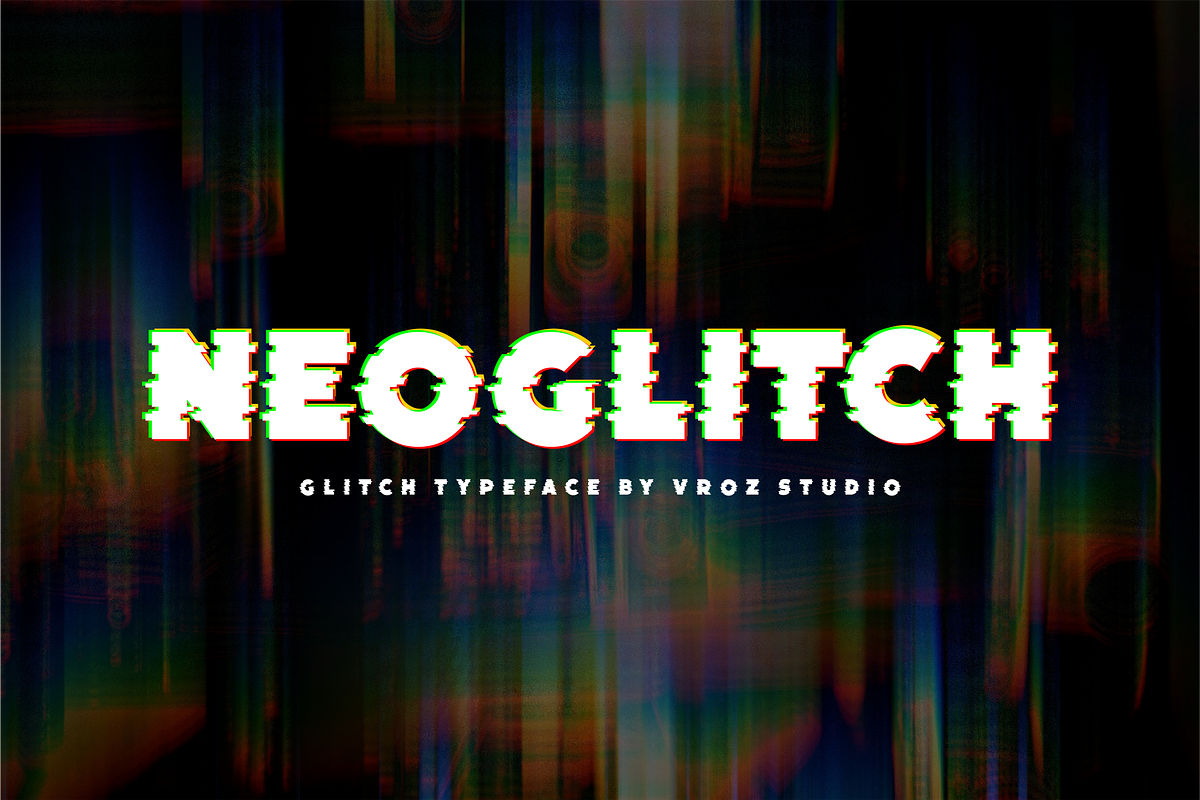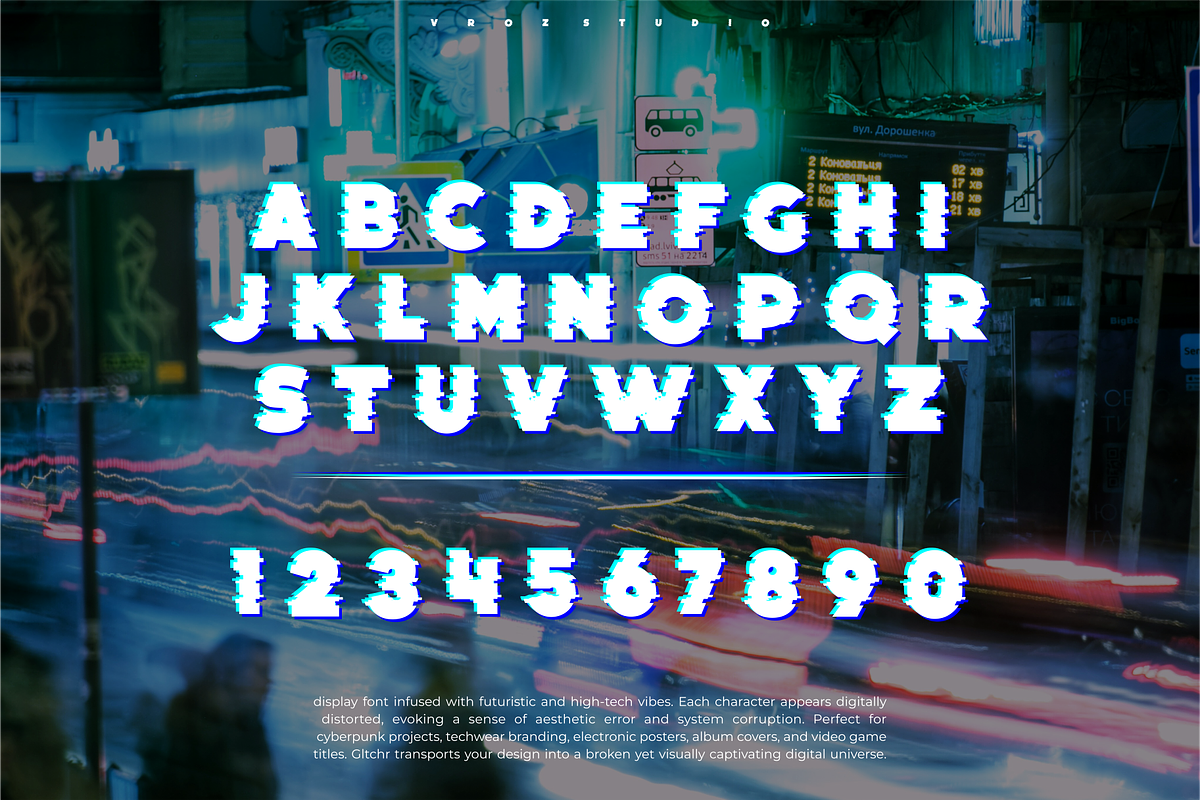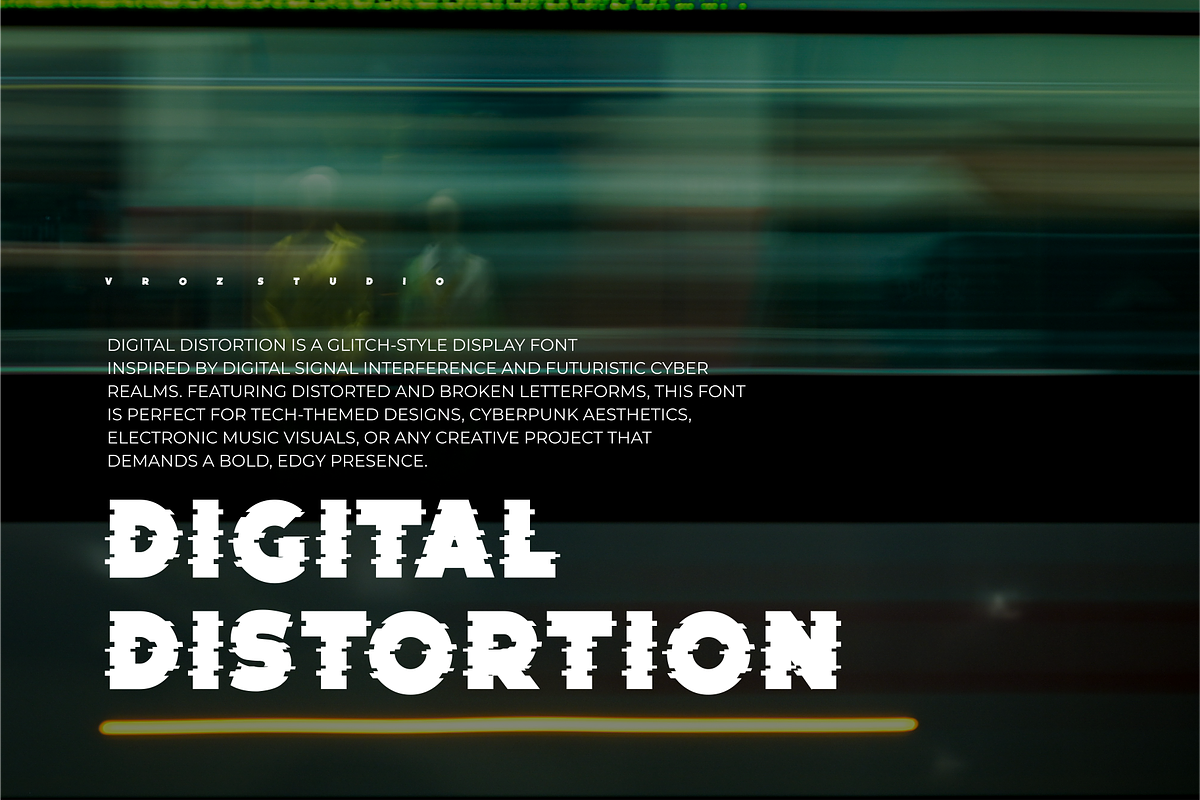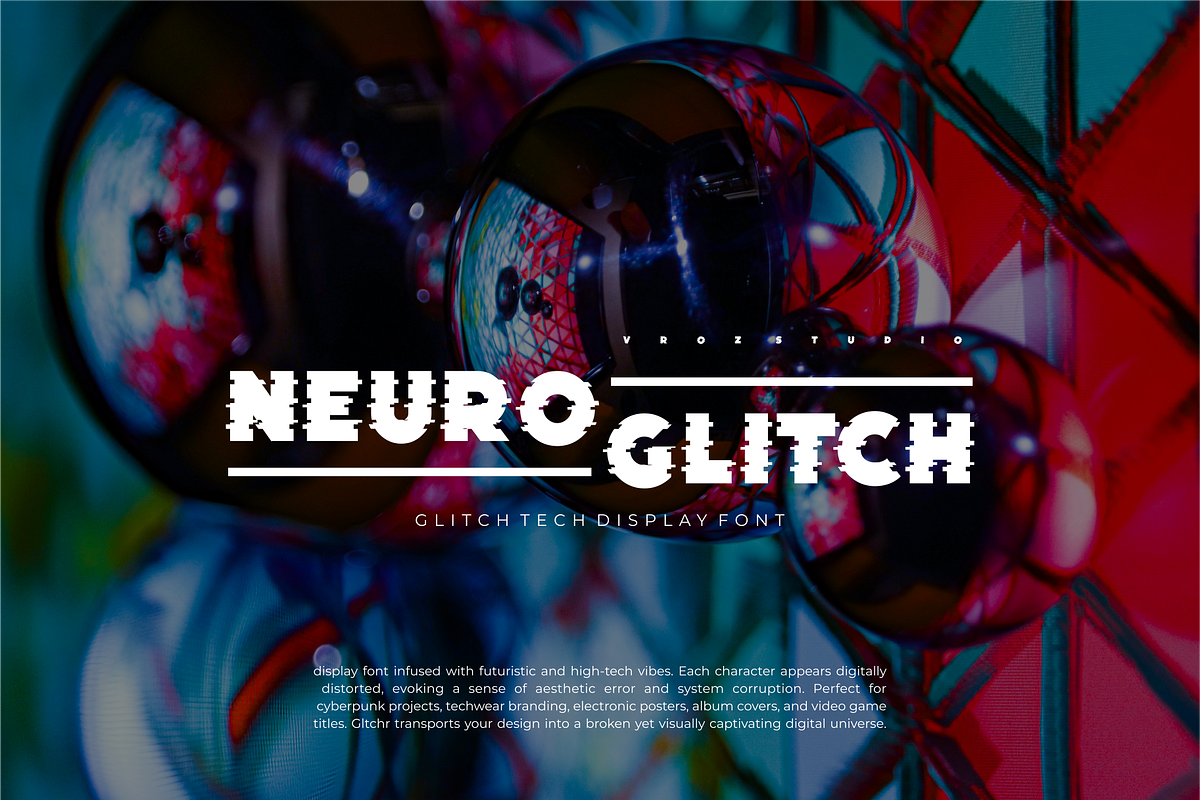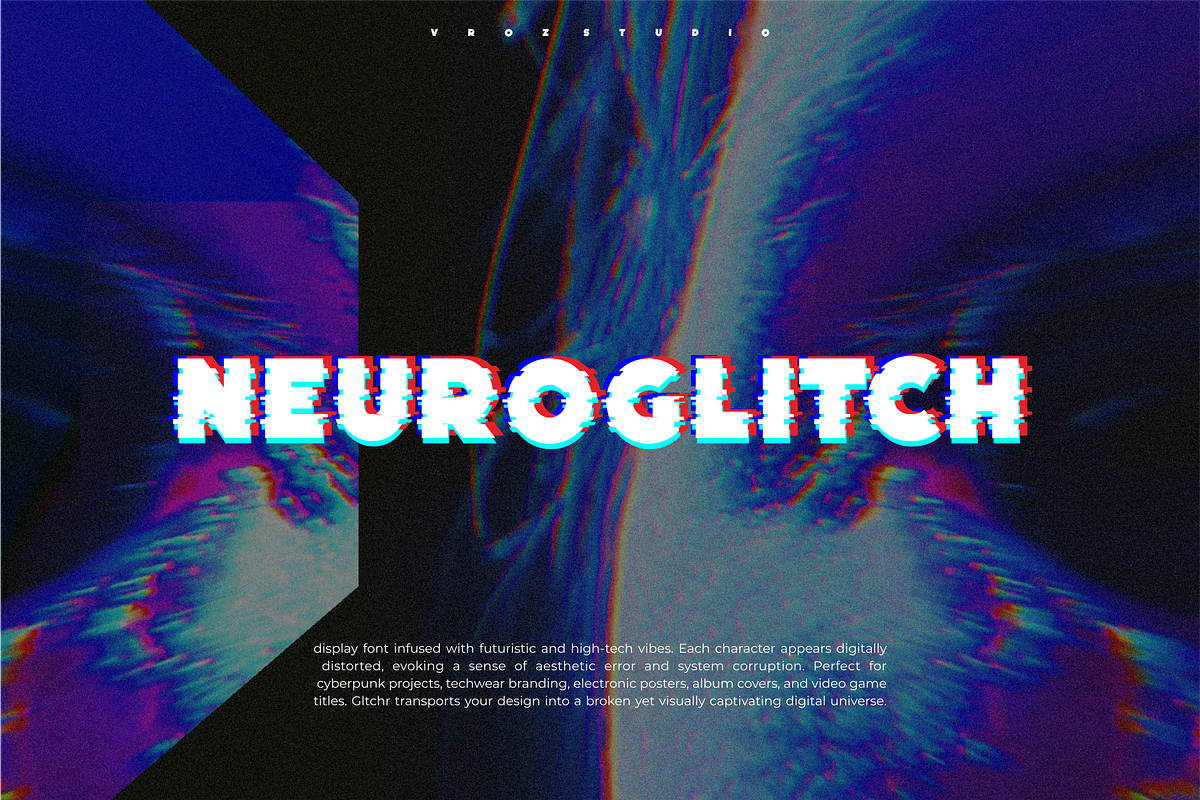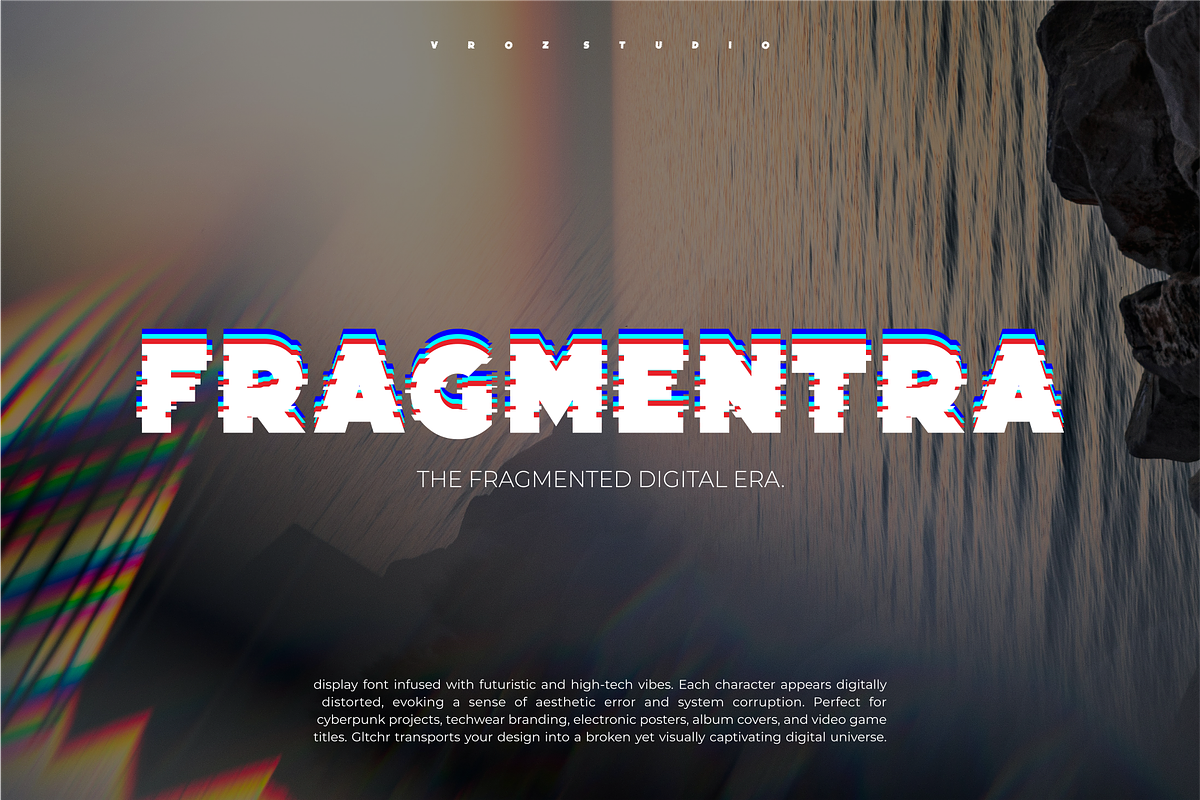
NEOGLITCH - Glitch Typeface font
NEOGLITCH – Glitch Typeface Font
NEOGLITCH is a modern font with a glitch effect, combining futuristic and digital elements. The design features characters that seem "glitched" or disrupted, giving it an energetic, techy vibe. It’s perfect for designs related to technology, cyberpunk, and digital themes. ___ Available in OTF, TTF, and WOFF formats, NEOGLITCH is versatile for both print and digital projects.
- Glitch Design: Distorted, techy characters for a futuristic look.
- Versatile: Great for logos, branding, posters, merchandise, websites, and more.
Suggested Uses:
- Apparel (t-shirts, hoodies, jackets)
- Accessories (bags, hats, shoes)
- Digital Media (websites, apps)
- Branding (logos, posters, banners)
Why NEOGLITCH? NEOGLITCH stands out with its bold, edgy look, perfect for brands that want to be noticed. It’s a great choice for memorable, unique designs. Add NEOGLITCH to your projects and give them a digital, modern twist!